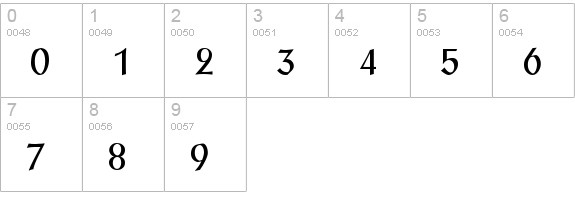
TR ProseAntique Font Details
TR ProseAntique font is a stunning typeface that exudes elegance and sophistication. Its timeless and classical design makes it perfect for a wide range of projects, from invitations to branding to editorial design. The intricate details of the letterforms give this font a sense of history and tradition, making it a versatile choice for both modern and vintage designs. The beauty of TR ProseAntique font lies in its delicate serifs and graceful curves, which add a touch of refinement to any project. Whether you are designing a wedding invitation or creating a logo for a luxury brand, this font will elevate your work to the next level. What's even better is that TR ProseAntique font is available for free download at FontsMarket.com. So you can add this exquisite typeface to your collection without breaking the bank. Don't miss out on the opportunity to enhance your designs with the timeless beauty of TR ProseAntique font. Download it today and let your creativity shine!